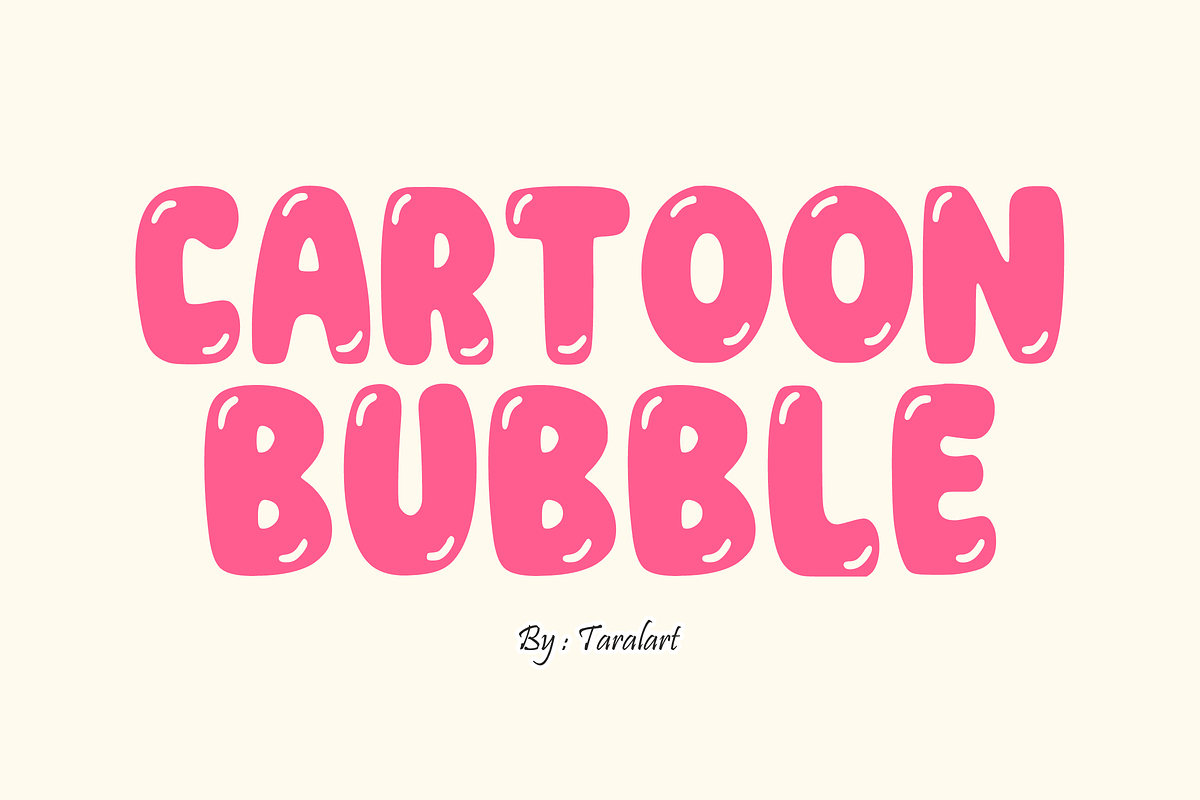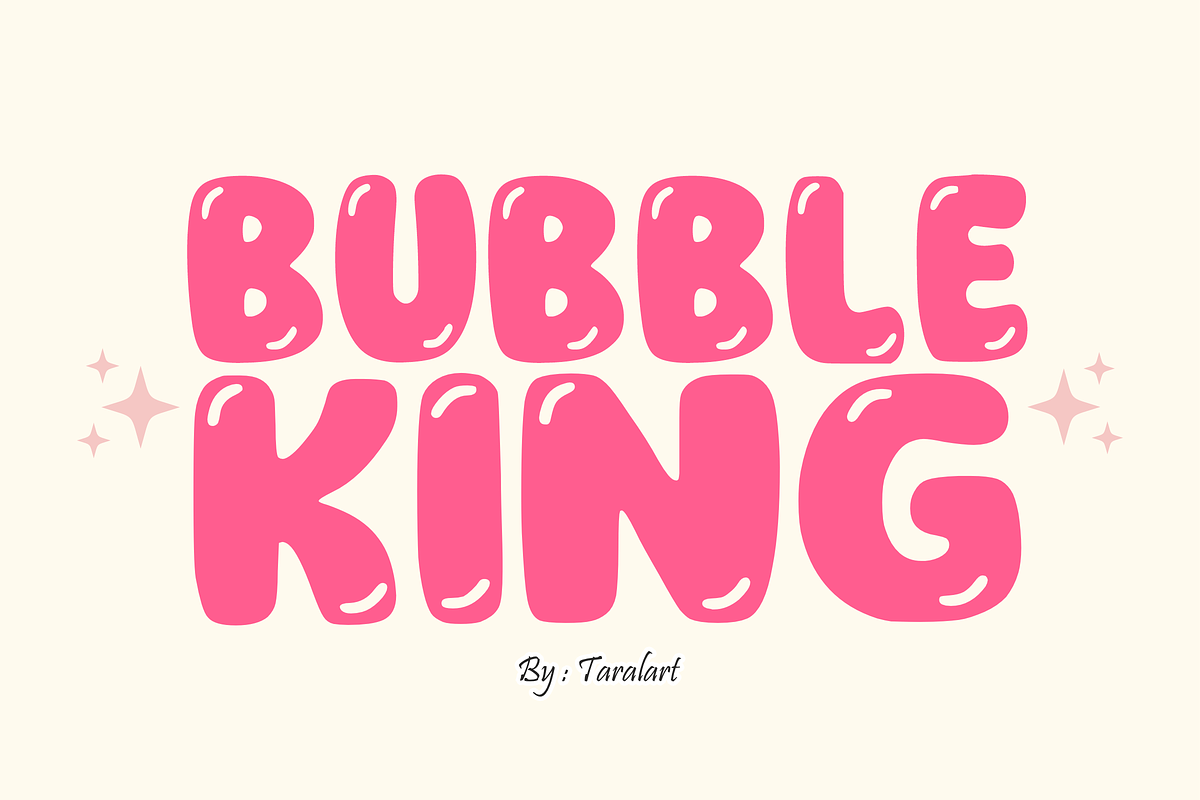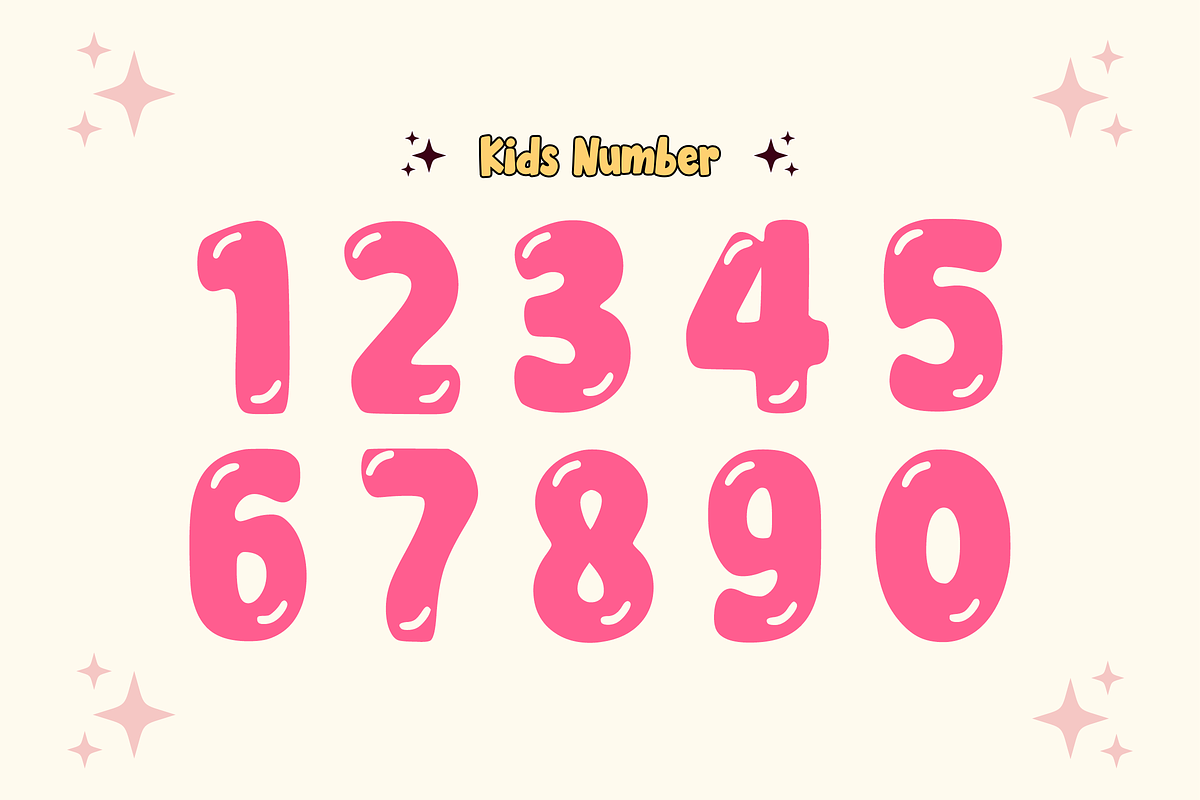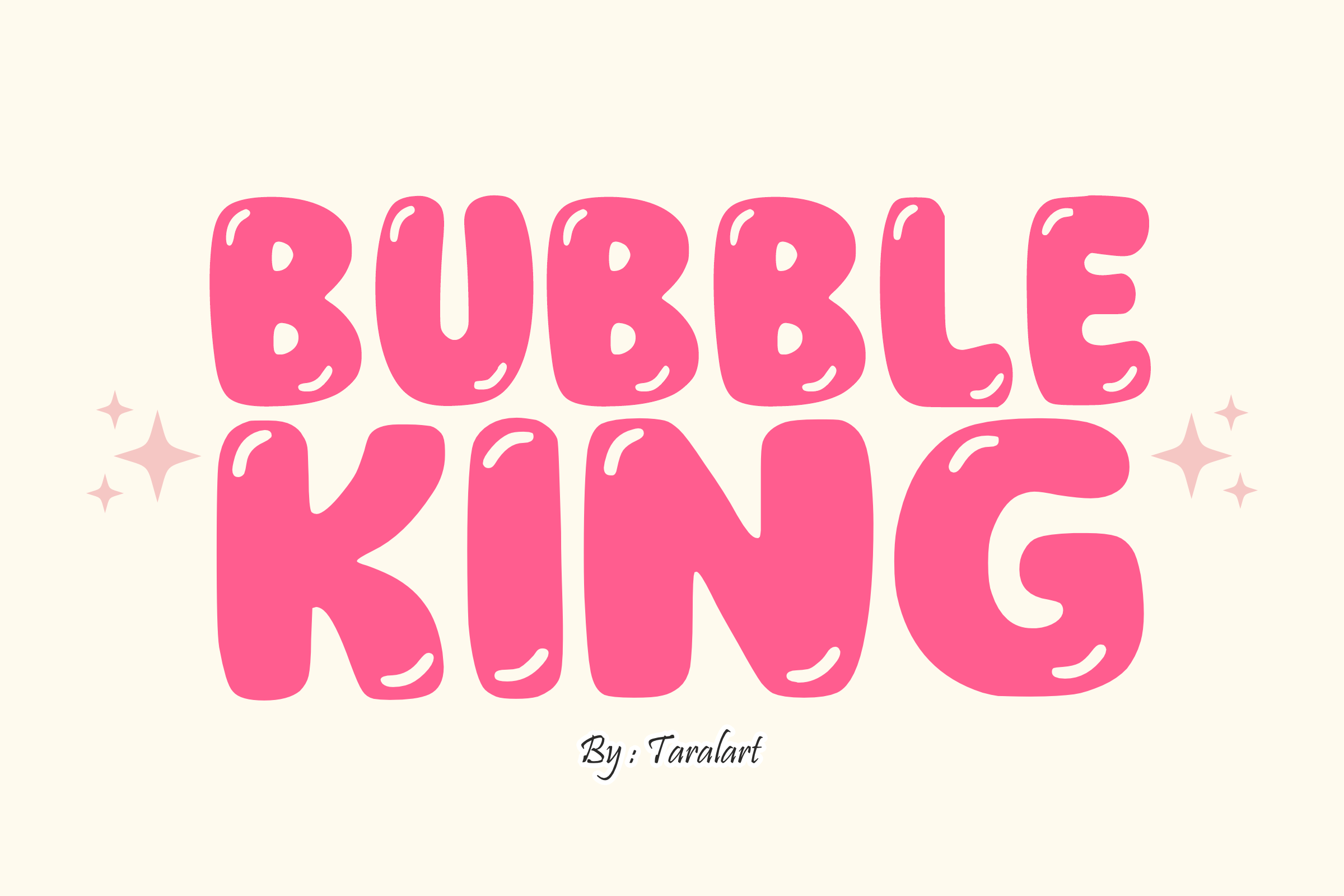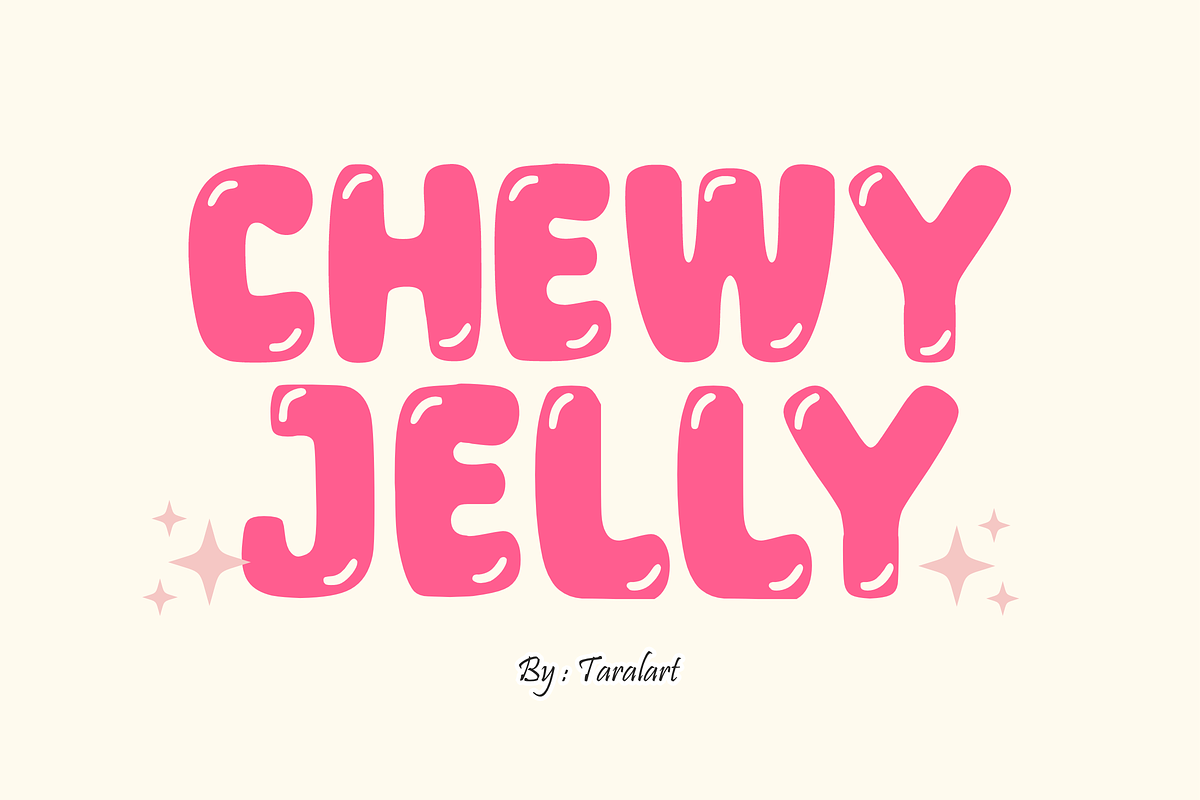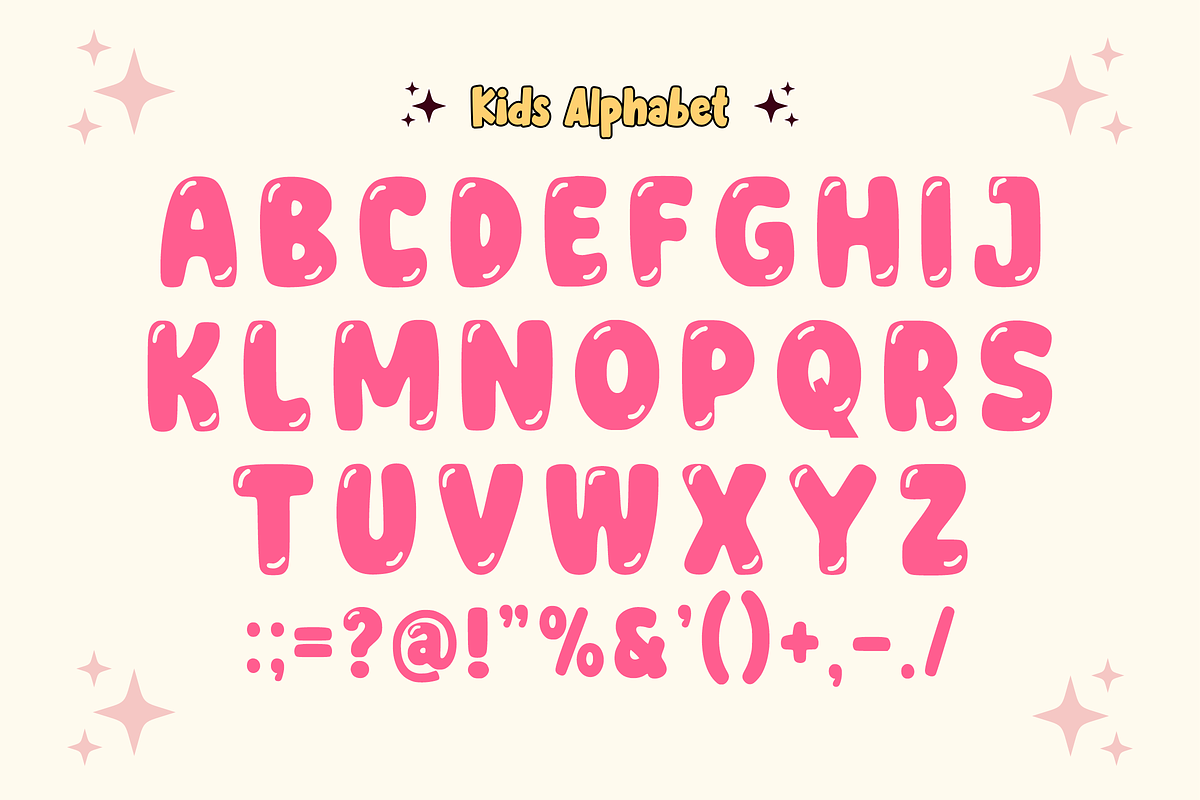
BUBBLE KING - Graffiti Bubble Font
BUBBLE KING - Playful Graffiti Bubble Font
Crown your designs with the ultimate chunky vibes using Bubble King! This ultra-bold display font features massive, rounded, balloon-like letterforms that instantly inject your headlines with high energy, a playful cartoon feel, and a splash of trendy street-art style.
Perfect for statement pieces, modern merchandise, and trend-focused crafting, Bubble King masterfully pairs a bloated bubble aesthetic with crisp legibility. It is highly versatile, deeply expressive, and fully optimized for seamless performance across digital cutting machine tools (like Cricut) and professional print layouts.
All-Caps Character Set (Chunky, bloated bubble uppercase letters)
Numbers & Basic Punctuation (Essential, simple symbols included)
Y2K Retro Designs, Streetwear Branding, & Hip-Hop Posters 🛼
Cricut, Silhouette, & DIY Fun Craft Sublimation Projects ✂️
Custom Die-Cut Stickers, Pop-Art Graphics, & Enamel Pins 🎨
Kids' Product Packaging, Toy Labels, & Birthday Party Themes 🎈
Social Media Graphics, Playful Logos, & High-Impact YouTube Thumbnails 📱